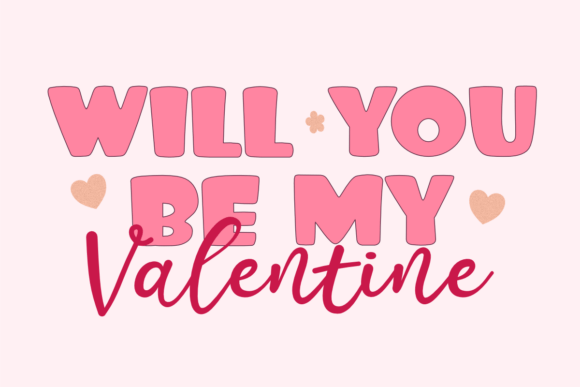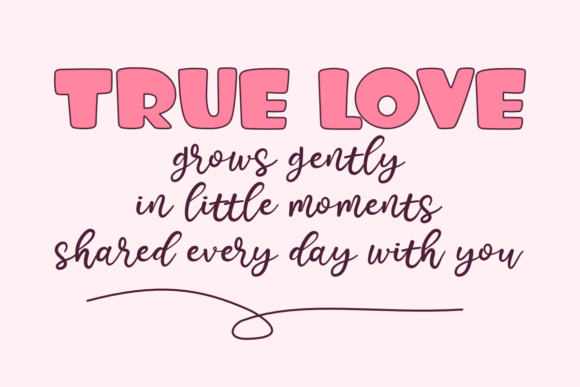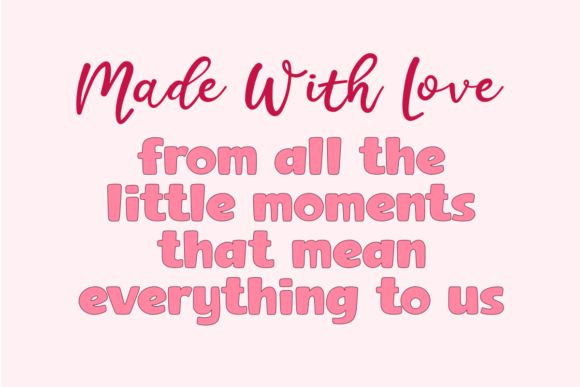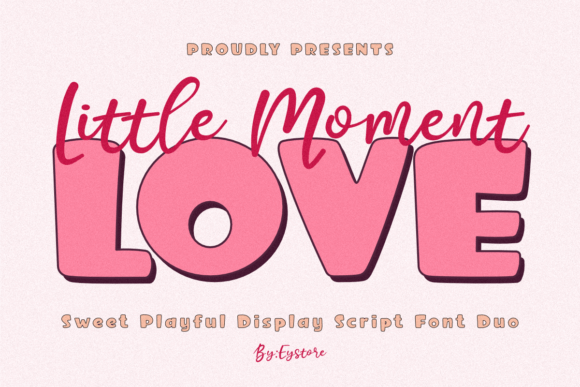
Introduction to Little Moment Love Duo Font
Little Moment Love is a sweet and cheerful duo font package, specifically designed to bring a touch of romance and joy to any of your creative projects .
The combination of a bold, bubbly Display font and a graceful, handwritten Script font makes this duo a top choice for Valentine’s Day and other love-themed projects Whether you’re creating a heartfelt greeting card, a trendy t-shirt design, or a charming piece of home decor, these two fonts work harmoniously to create a balanced, professional look in an instant.
Key Features of Little Moment Love Duo Font
Why Choose Little Moment Love Duo Font?
Little Moment Love Duo Font offers exceptional quality and versatility, making it a valuable addition to your design toolkit. Whether you’re creating for personal projects or commercial use, Little Moment Love Duo Font delivers professional results.